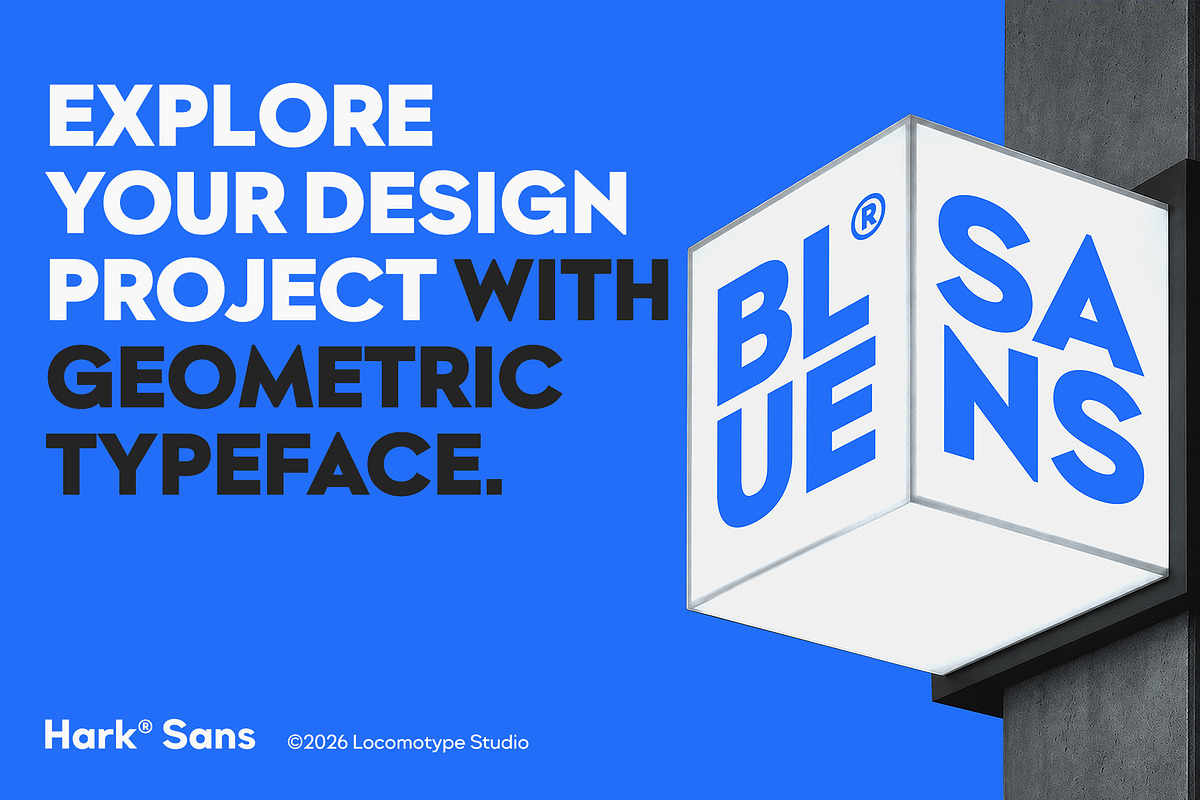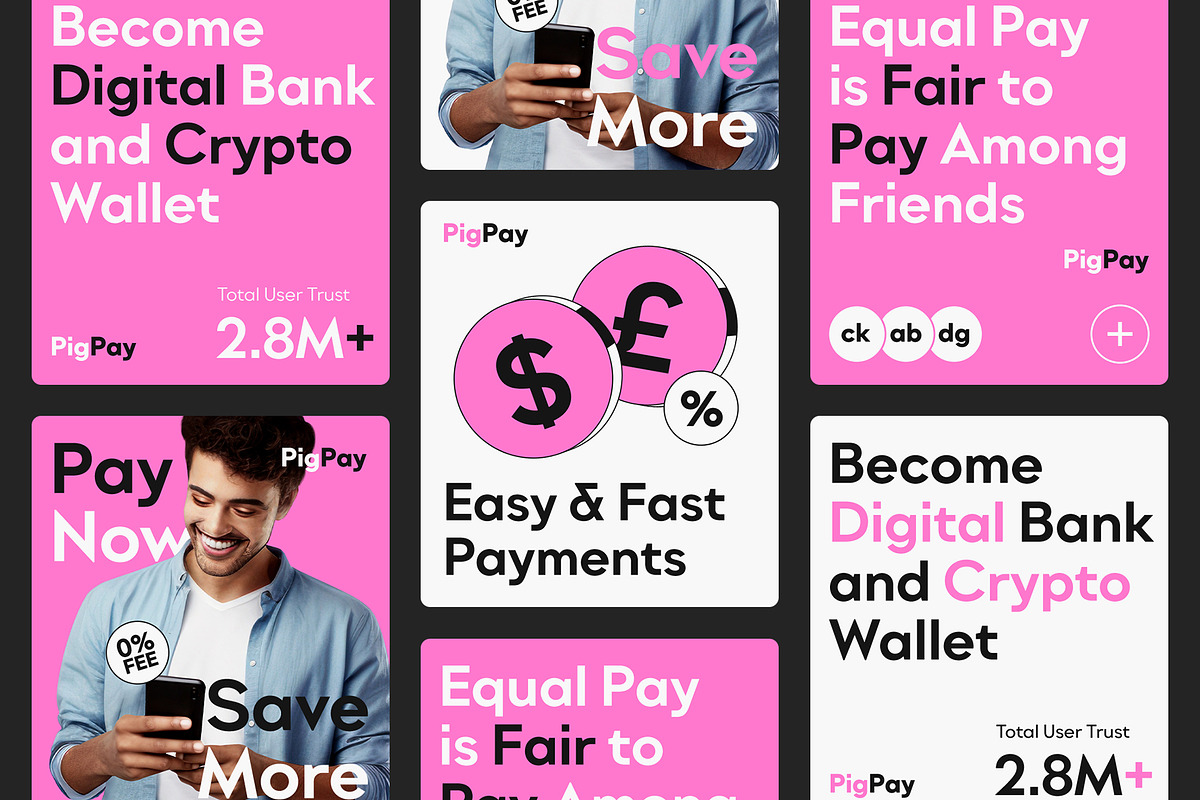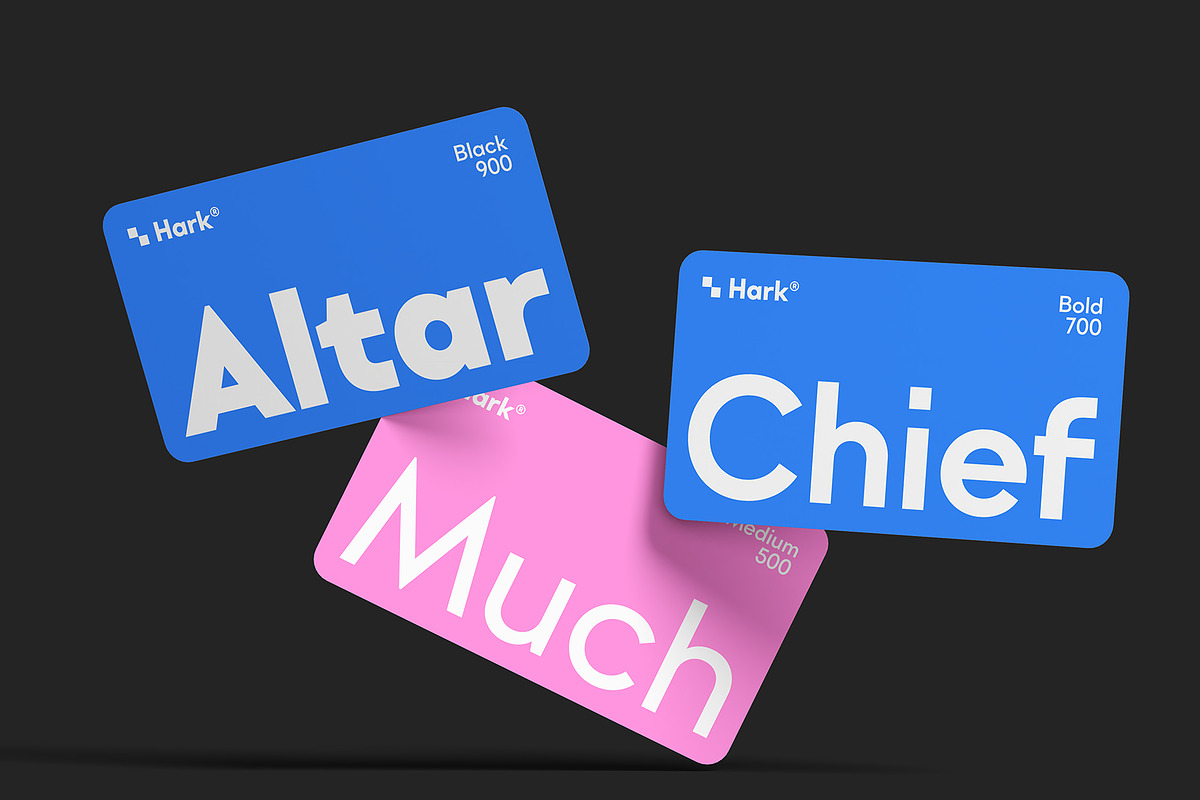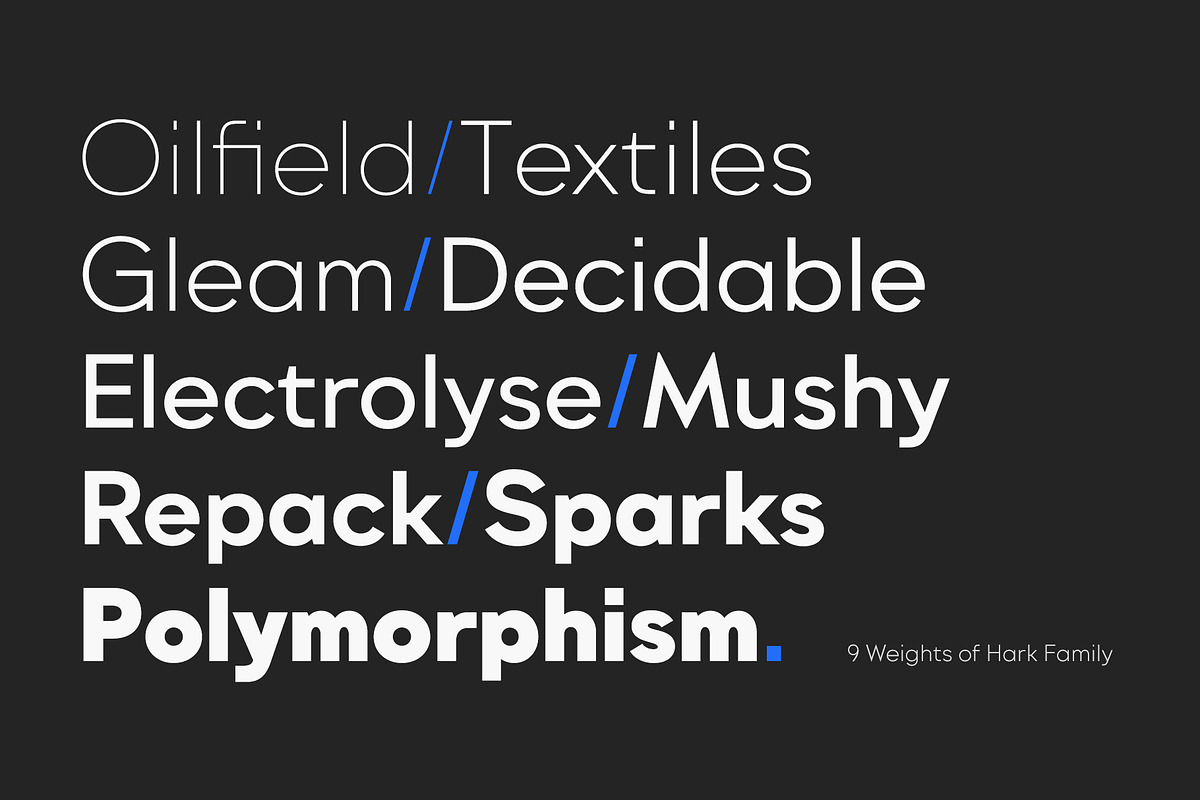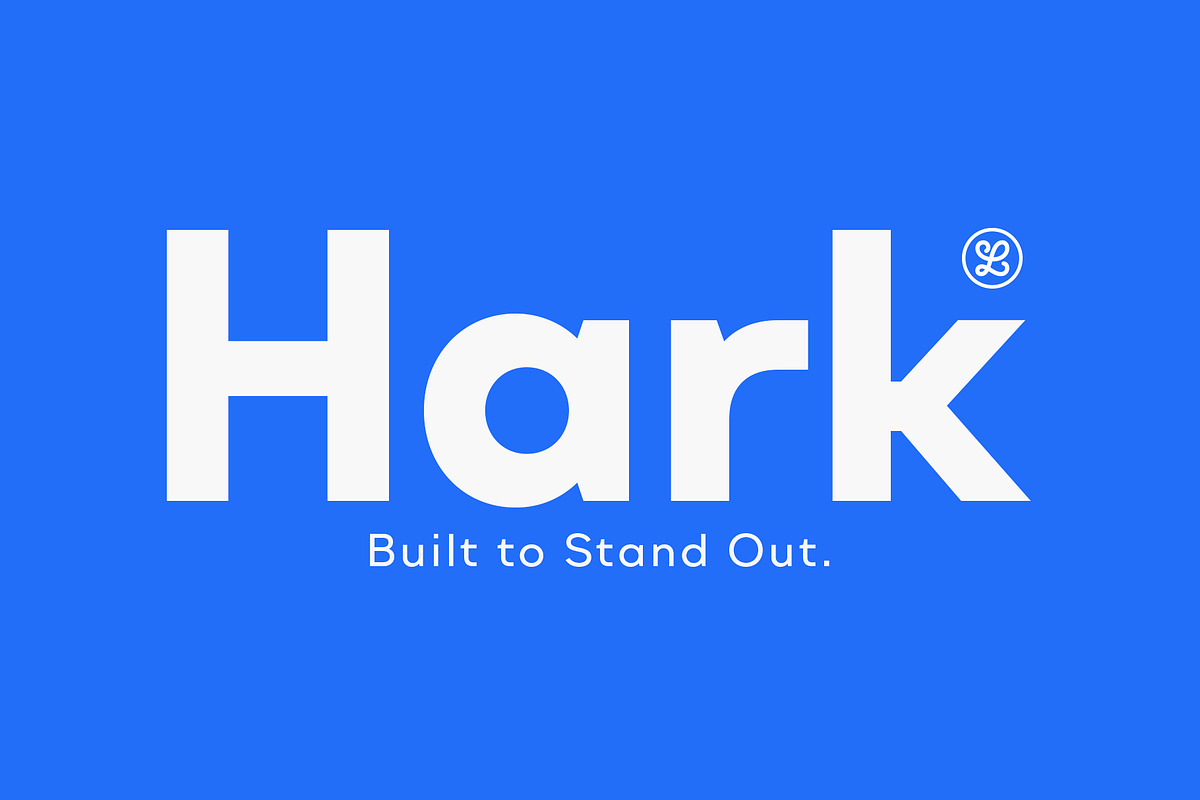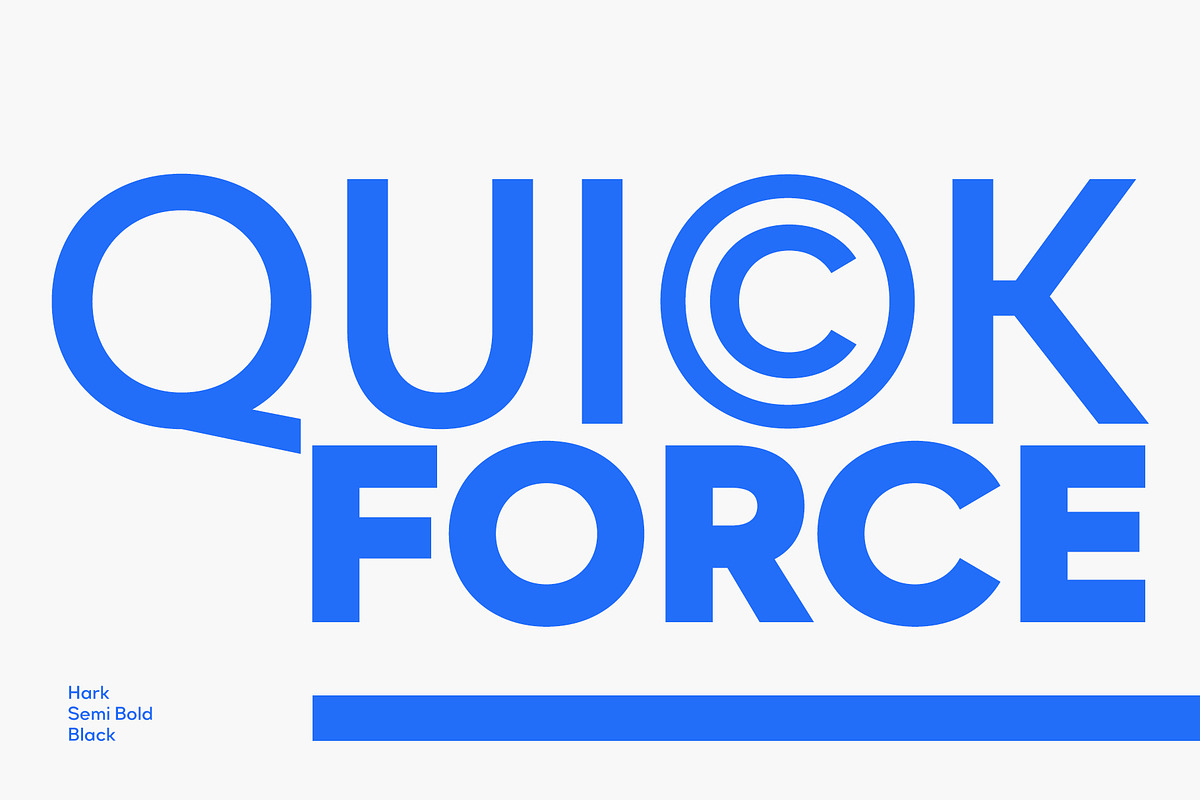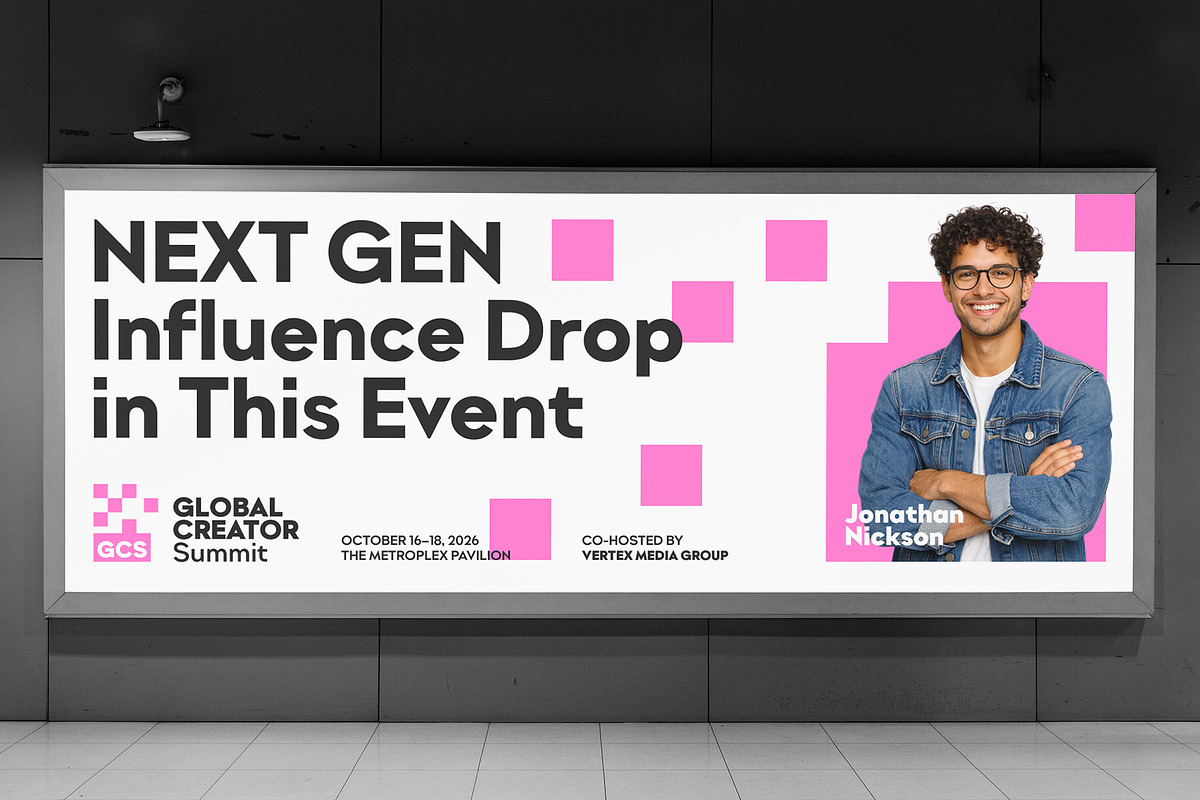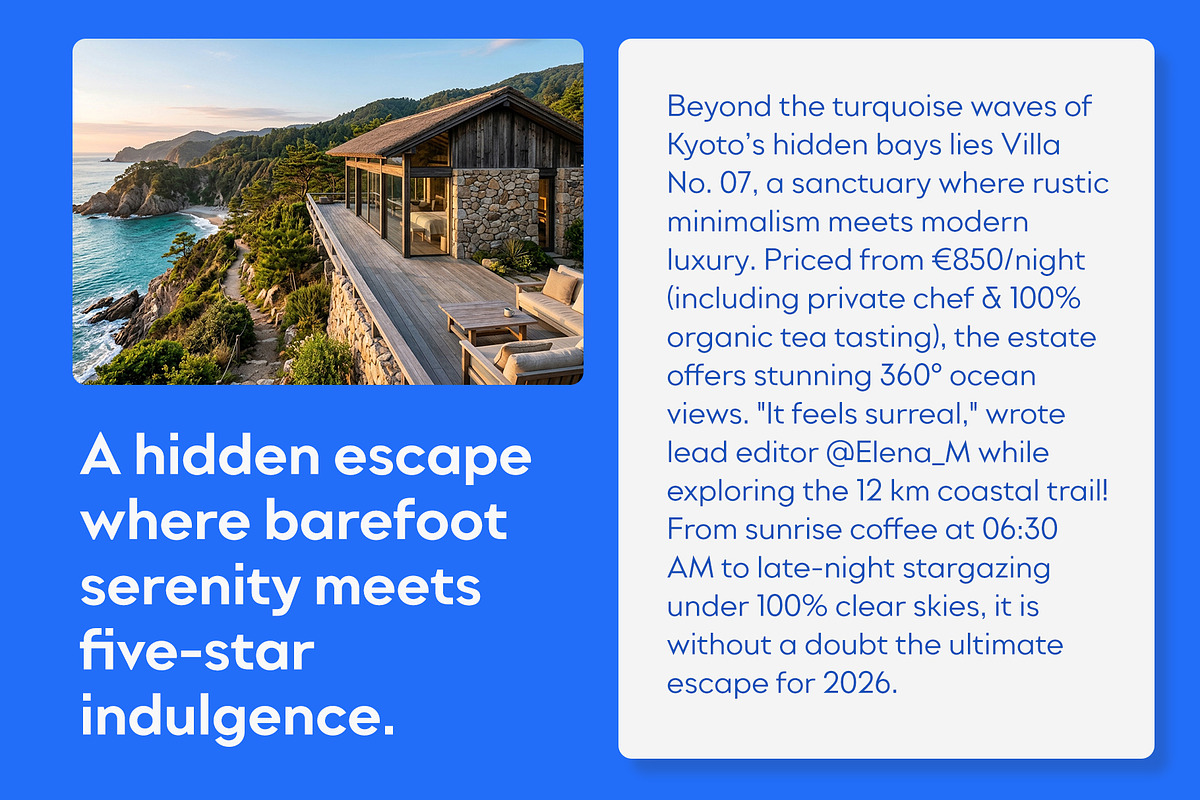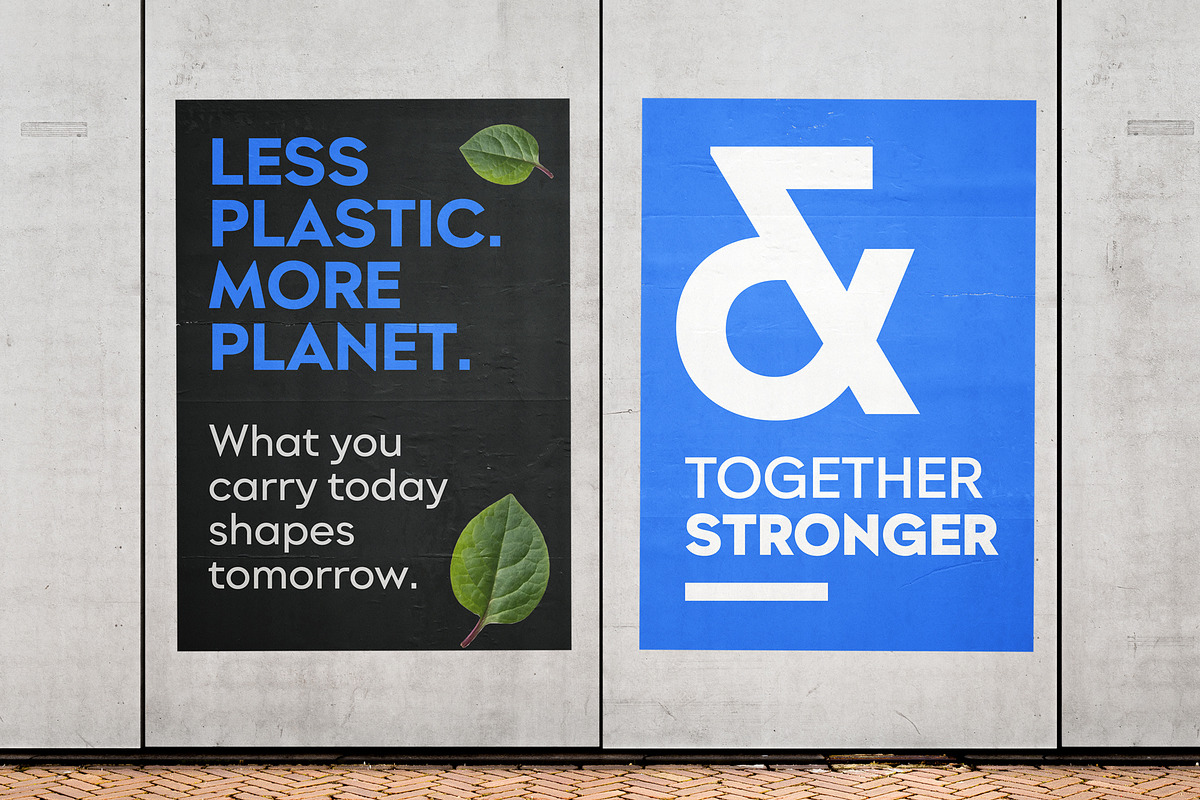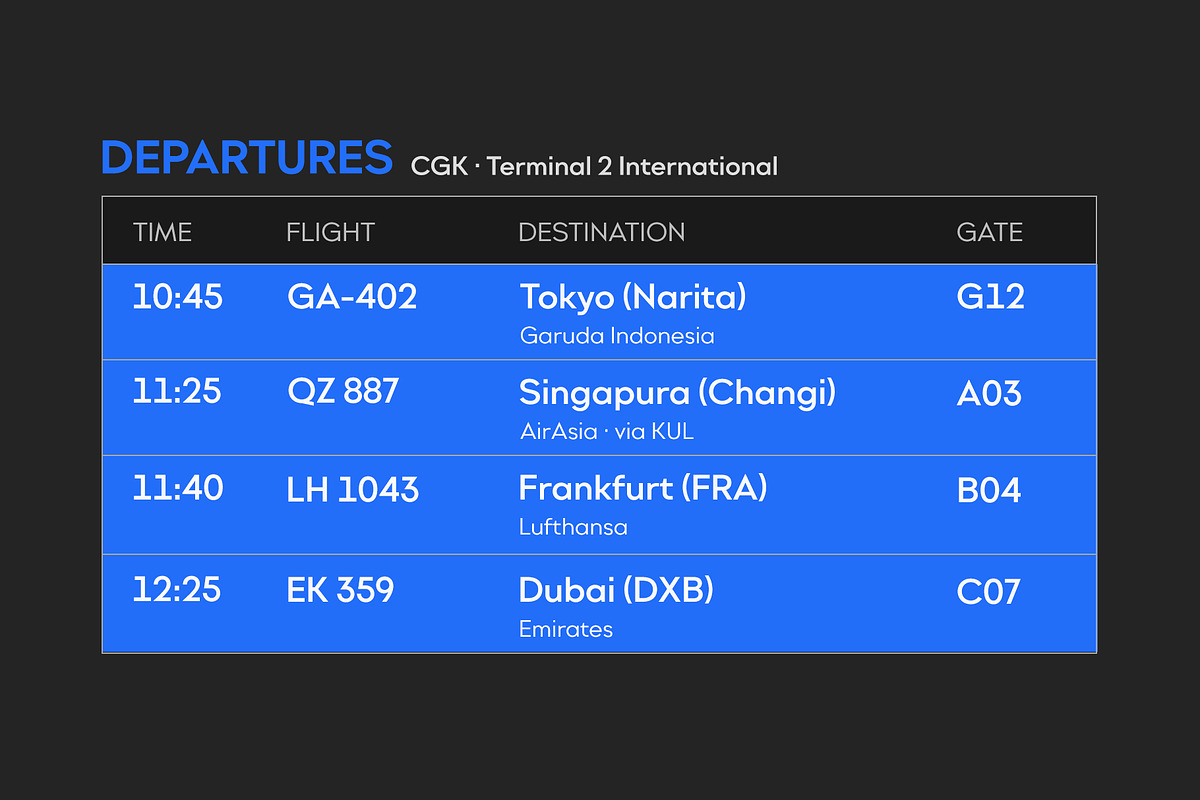
Hark
Hark is a modern geometric sans serif with a solid and confident presence. Inspired by the strength and clarity of iconic typefaces like Gotham and Montserrat, Hark delivers a clean, powerful aesthetic that feels both professional and timeless.
The family comes in 9 weights from Thin to Black, with matching upright and italic styles. Its robust structure and approachable proportions make Hark equally effective for display and text, from branding and editorial design to websites, posters, and user interfaces.
With extensive language coverage including Cyrillic support, Hark is a versatile type family built for modern, multilingual design.